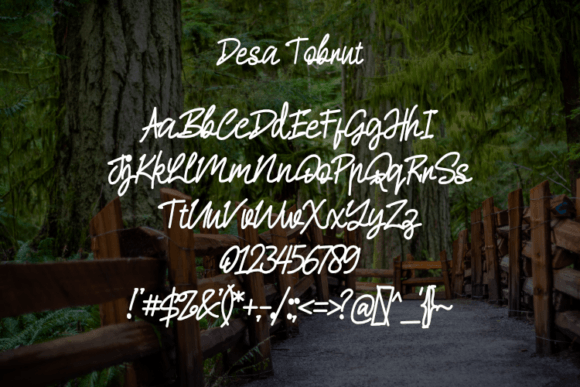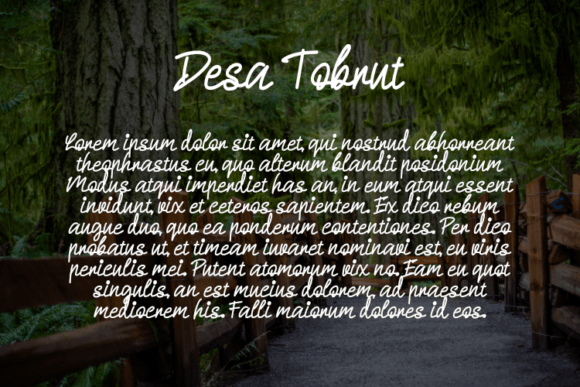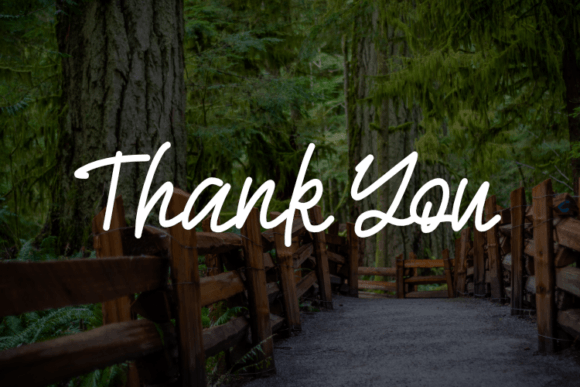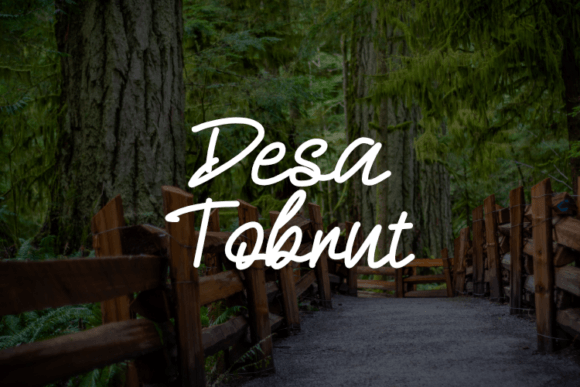
Introduction to Desa Tobrut Font
Unveiling Desa Tobrut, the quintessential font for fashion creatives.
An artistic choice that transforms the surface of any clothing or product into an expressive canvas This versatile font effortlessly graces all design platforms and is compatible with all software applications.
Key Features of Desa Tobrut Font
Why Choose Desa Tobrut Font?
Desa Tobrut Font offers exceptional quality and versatility, making it a valuable addition to your design toolkit. Whether you’re creating for personal projects or commercial use, Desa Tobrut Font delivers professional results.